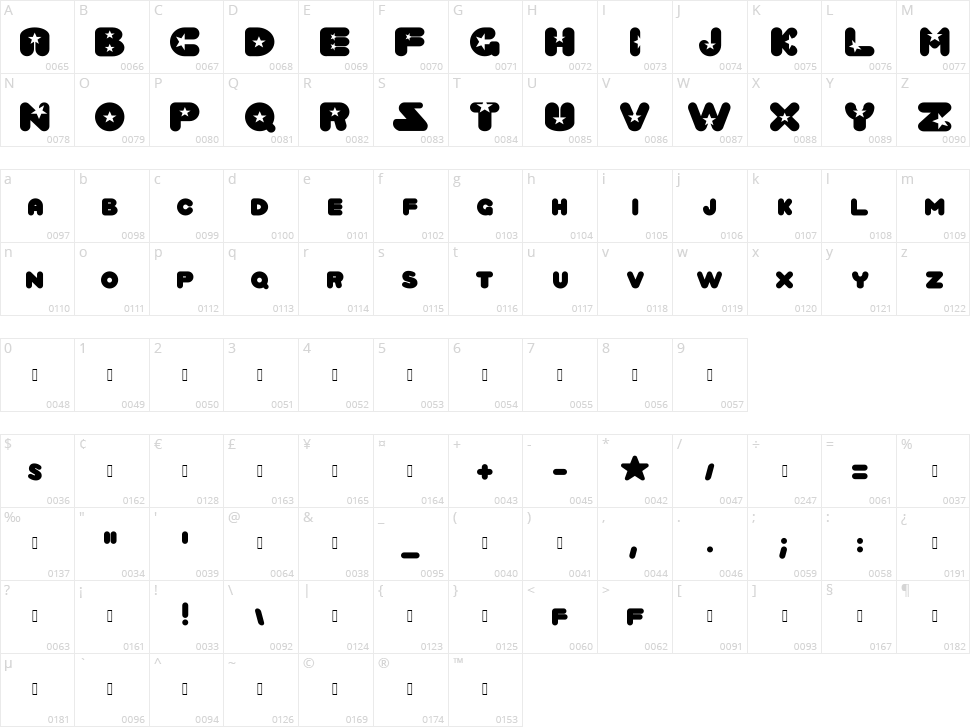
Crystal Universe
CRYSTAL UNIVERSE FONT
Crystal Universe is a font that replicates the font used for the logo of the animated television show Steven Universe (tm).
Steven Universe (tm) was created by Rebecca Sugar.